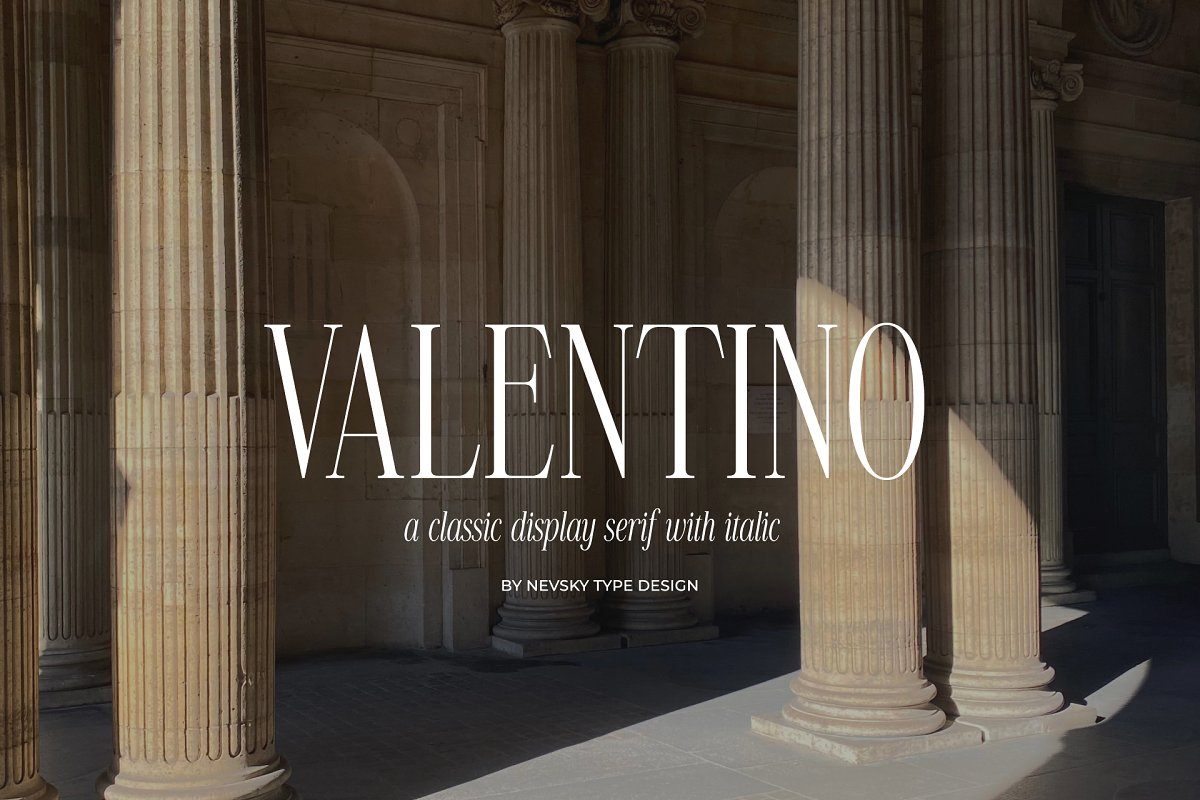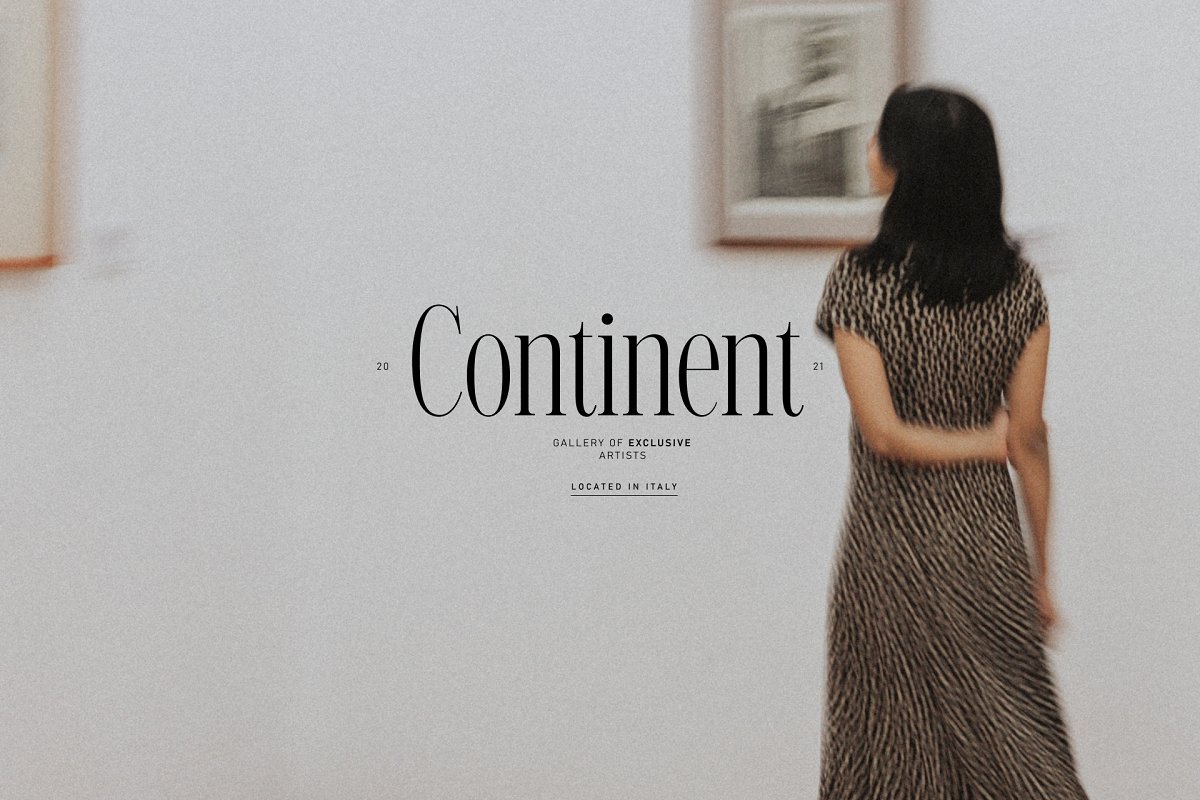
About the NT VALENTINO Font
NT VALENTINO is a new serif font, This elegant font needs to be in your collection and is perfect for your next luxury design project, NT VALENTINO supports over 200 Latin-based languages, If you need more detailed information you can contact me at: nevsky, type@gmail, com